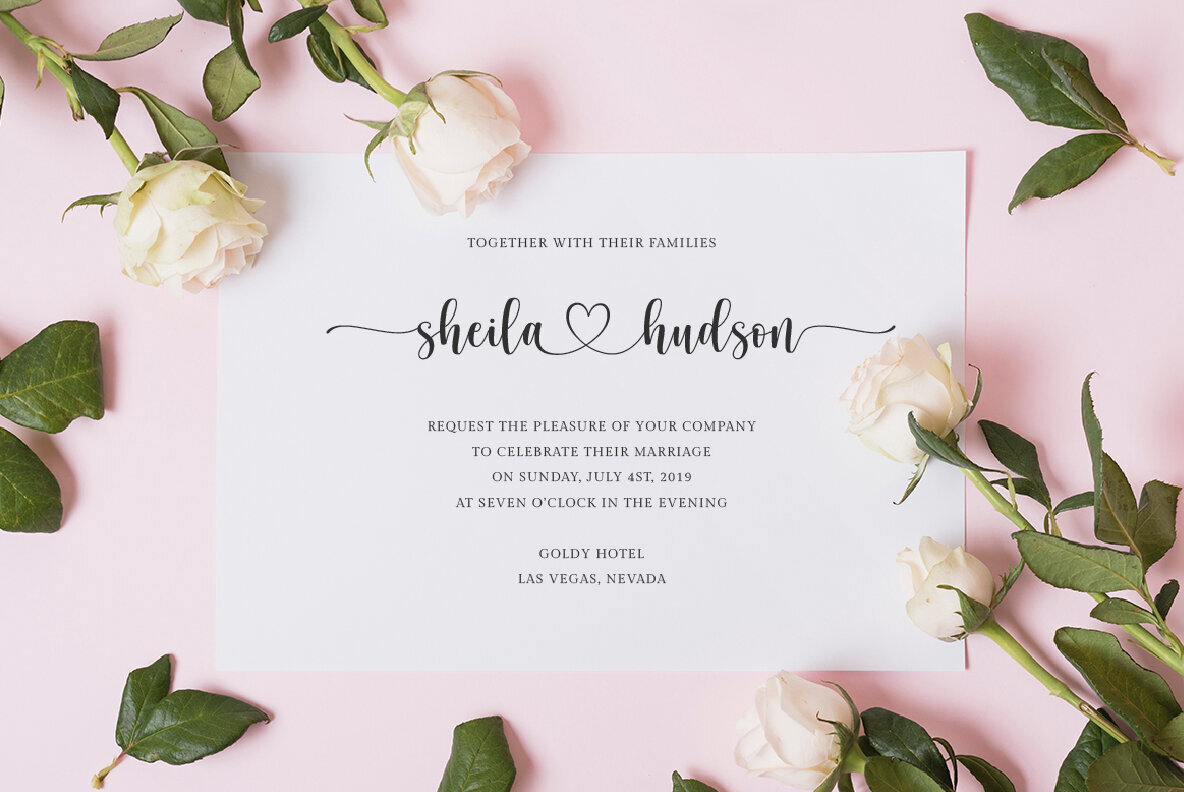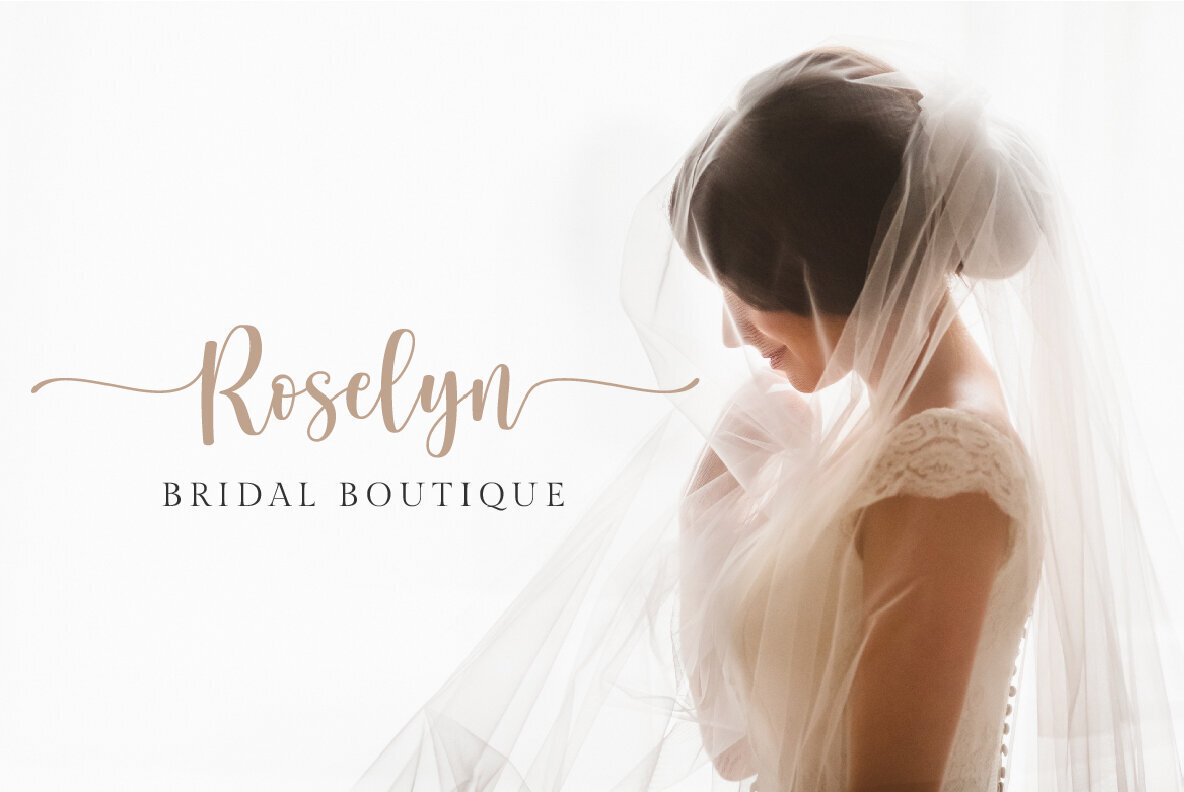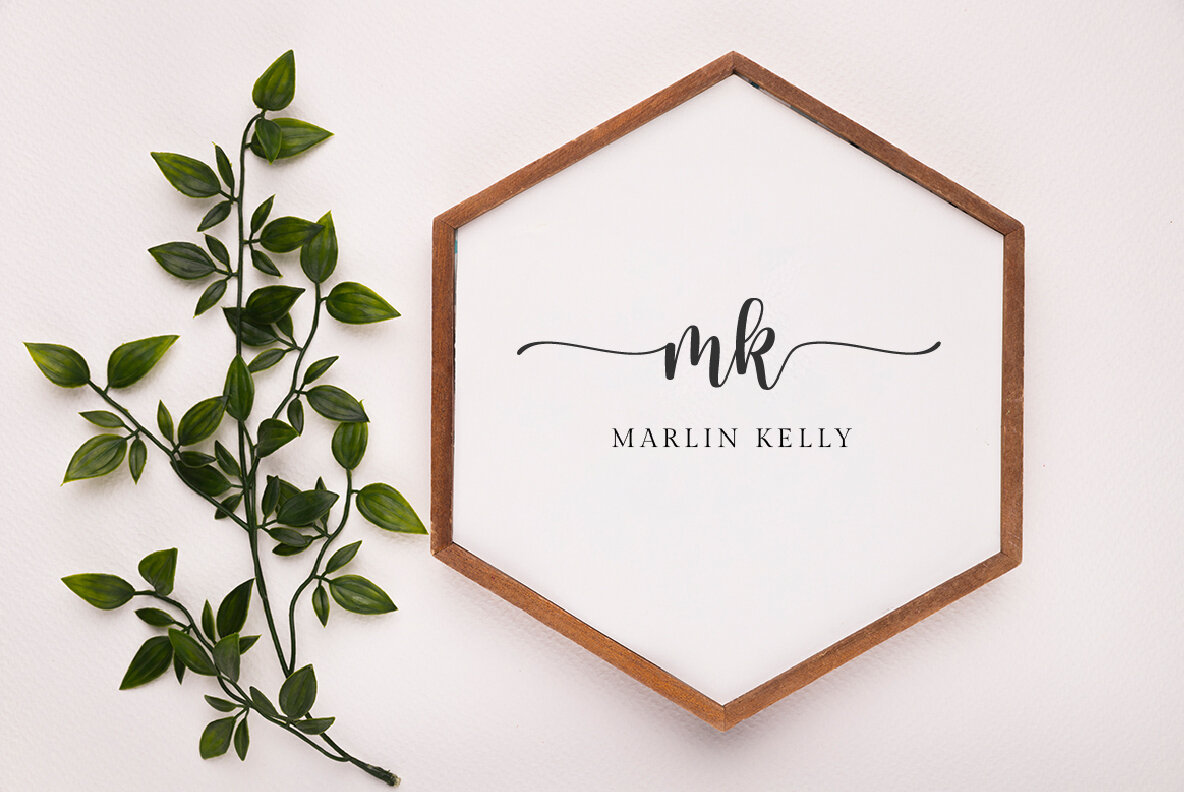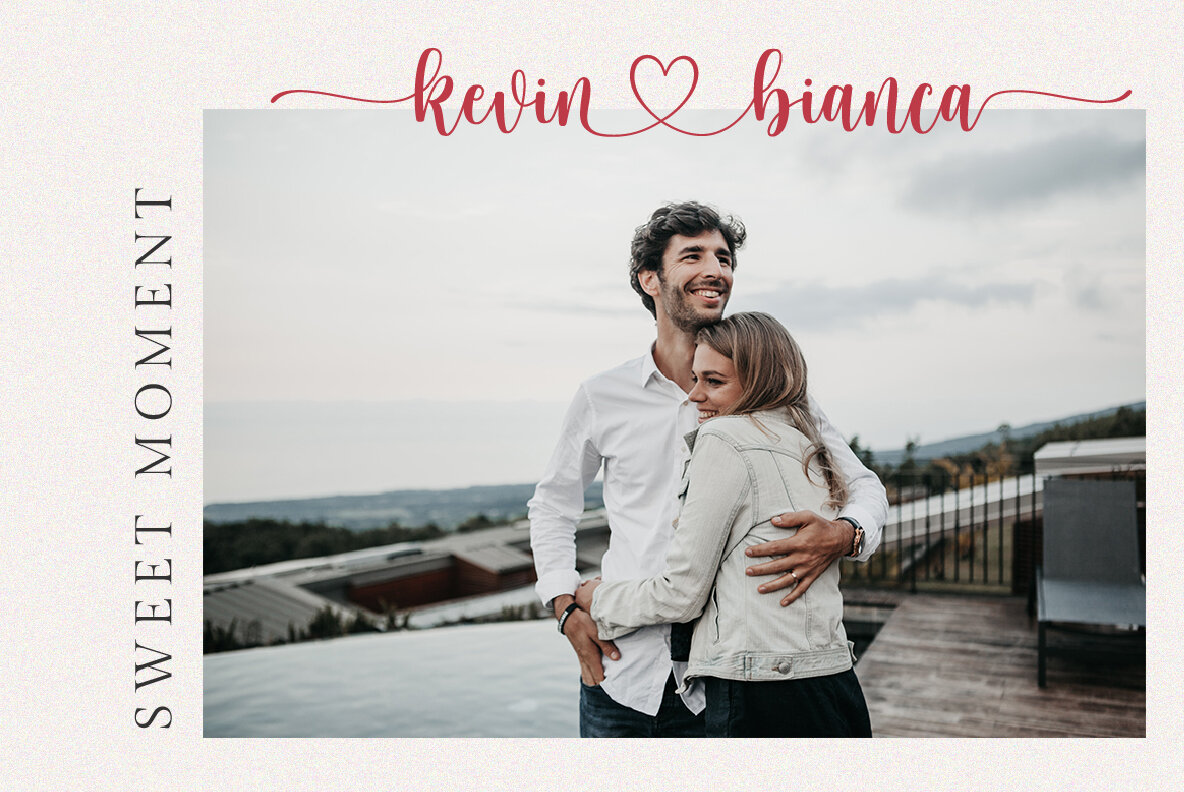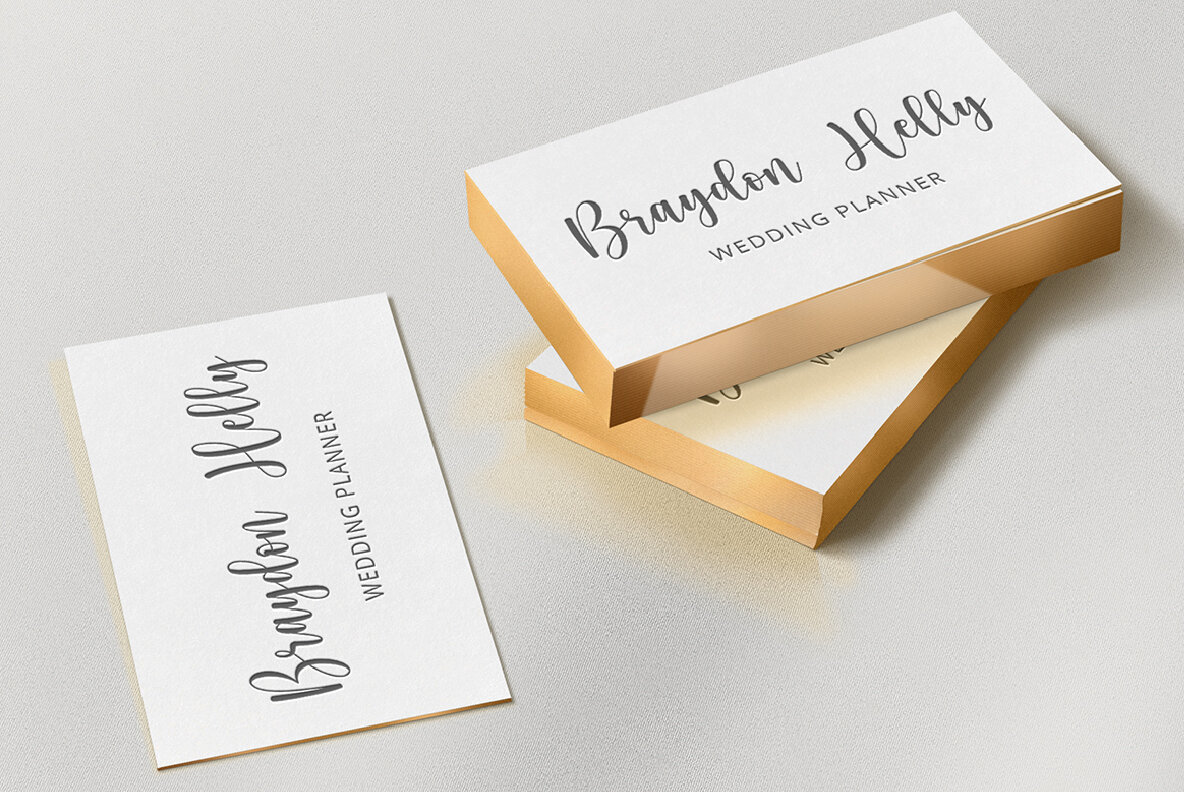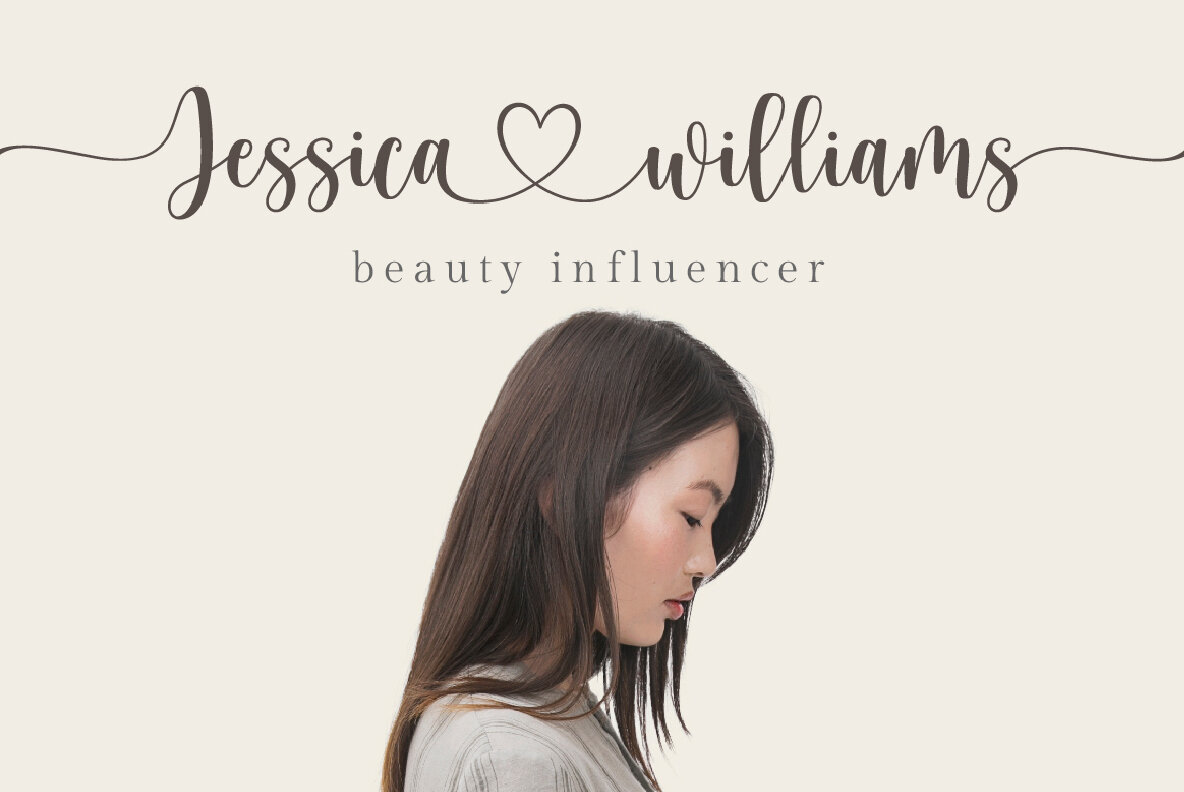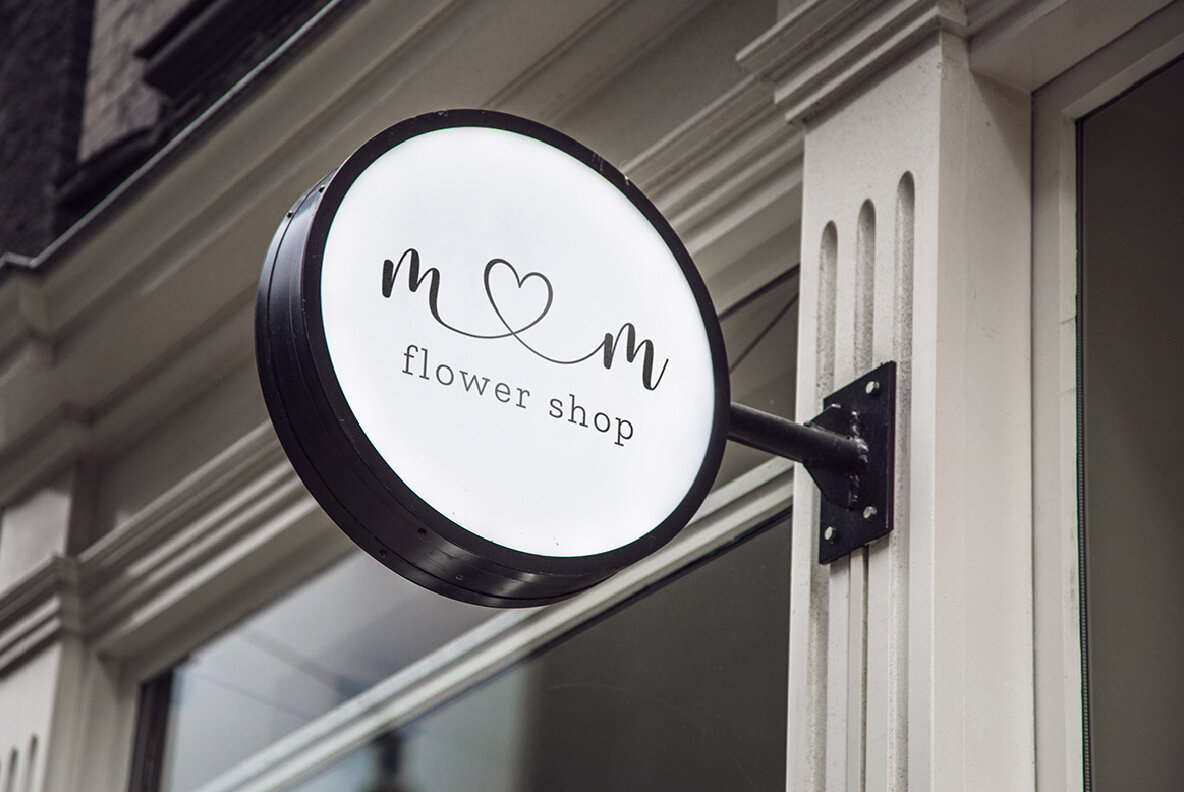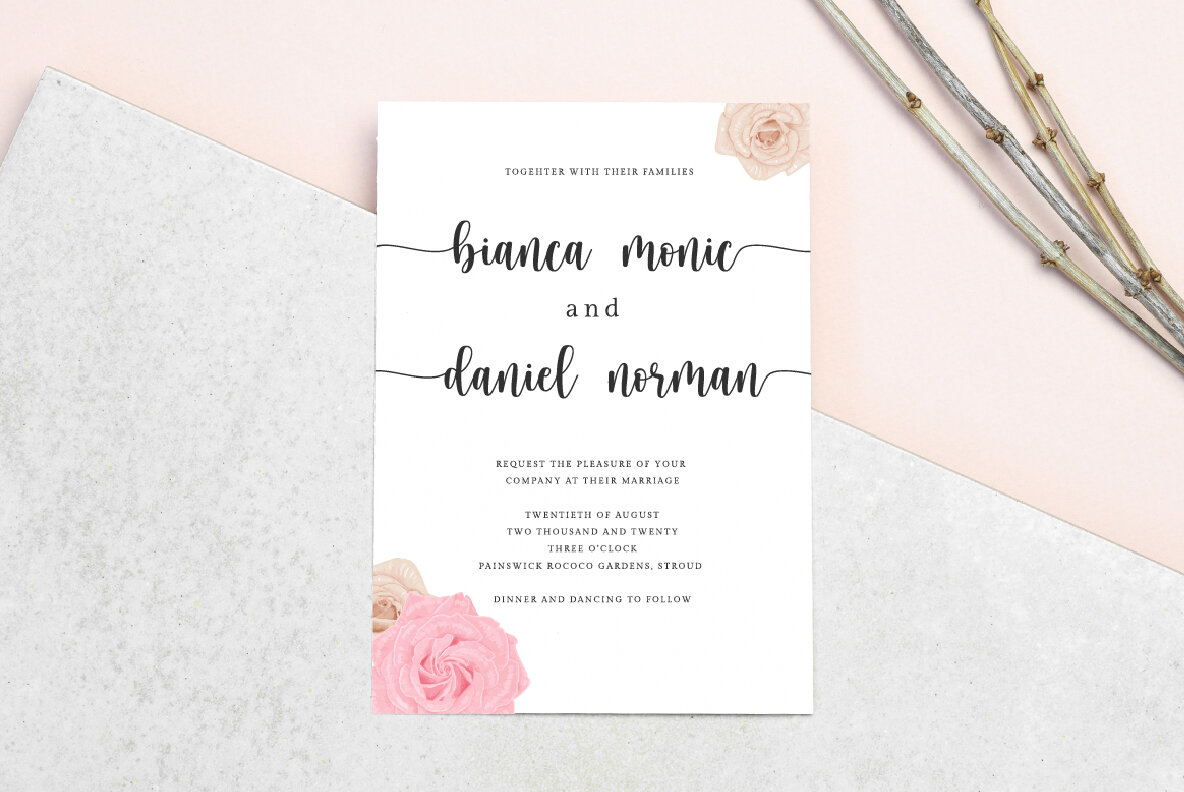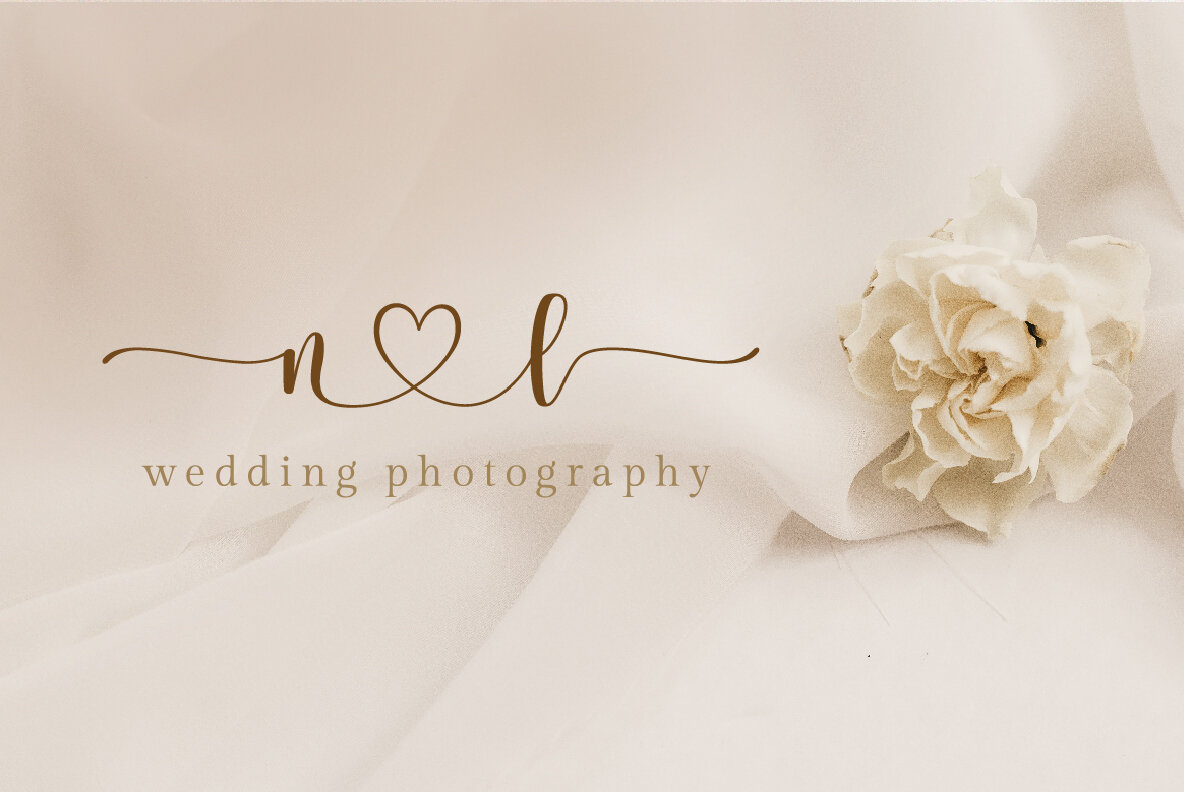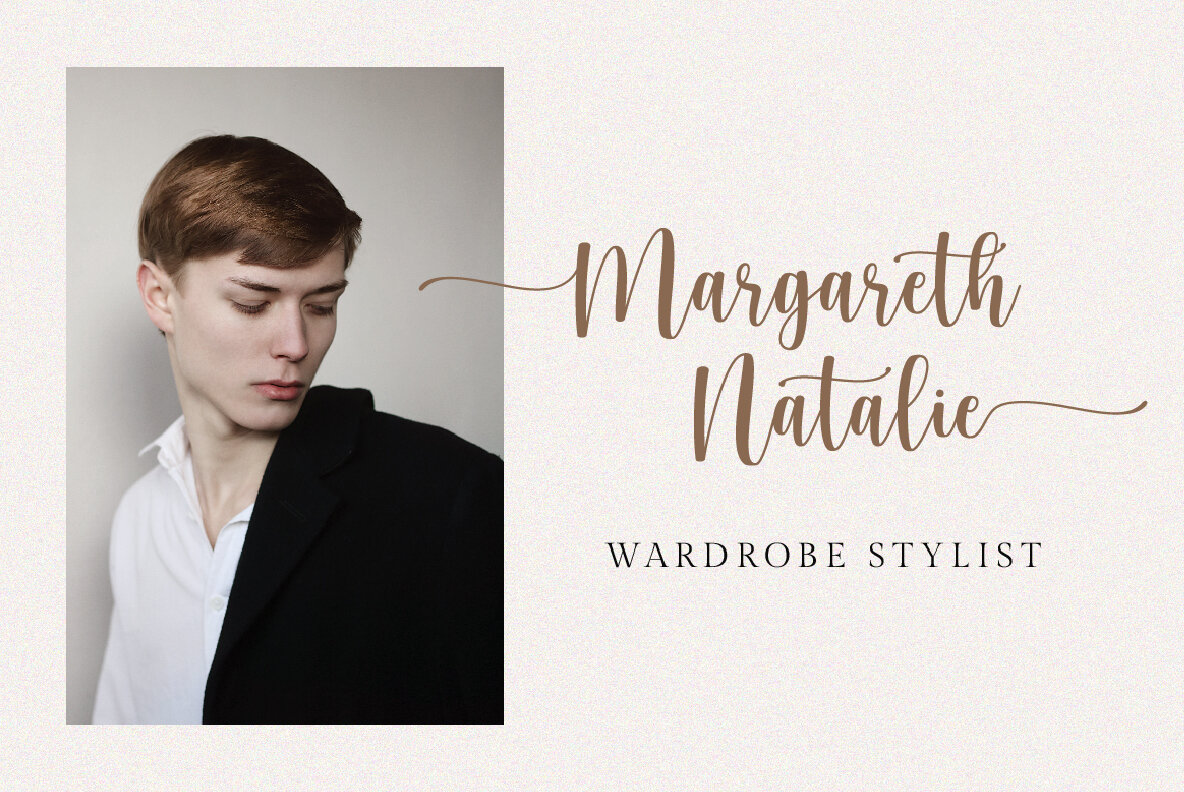
Hello Honey Font
Hello Honey is a beautifully crafted script font, perfect for branding, wedding invitations, and other romantic projects.Hello Honey: Chic Script for Romantic Projects